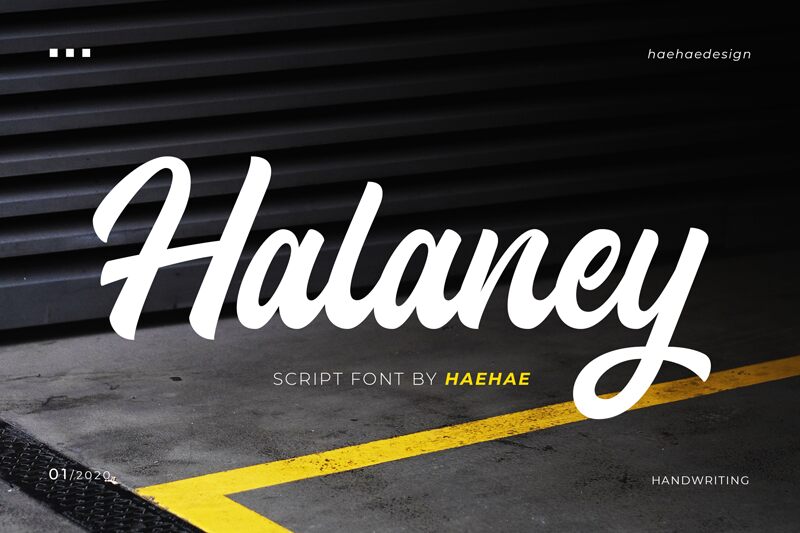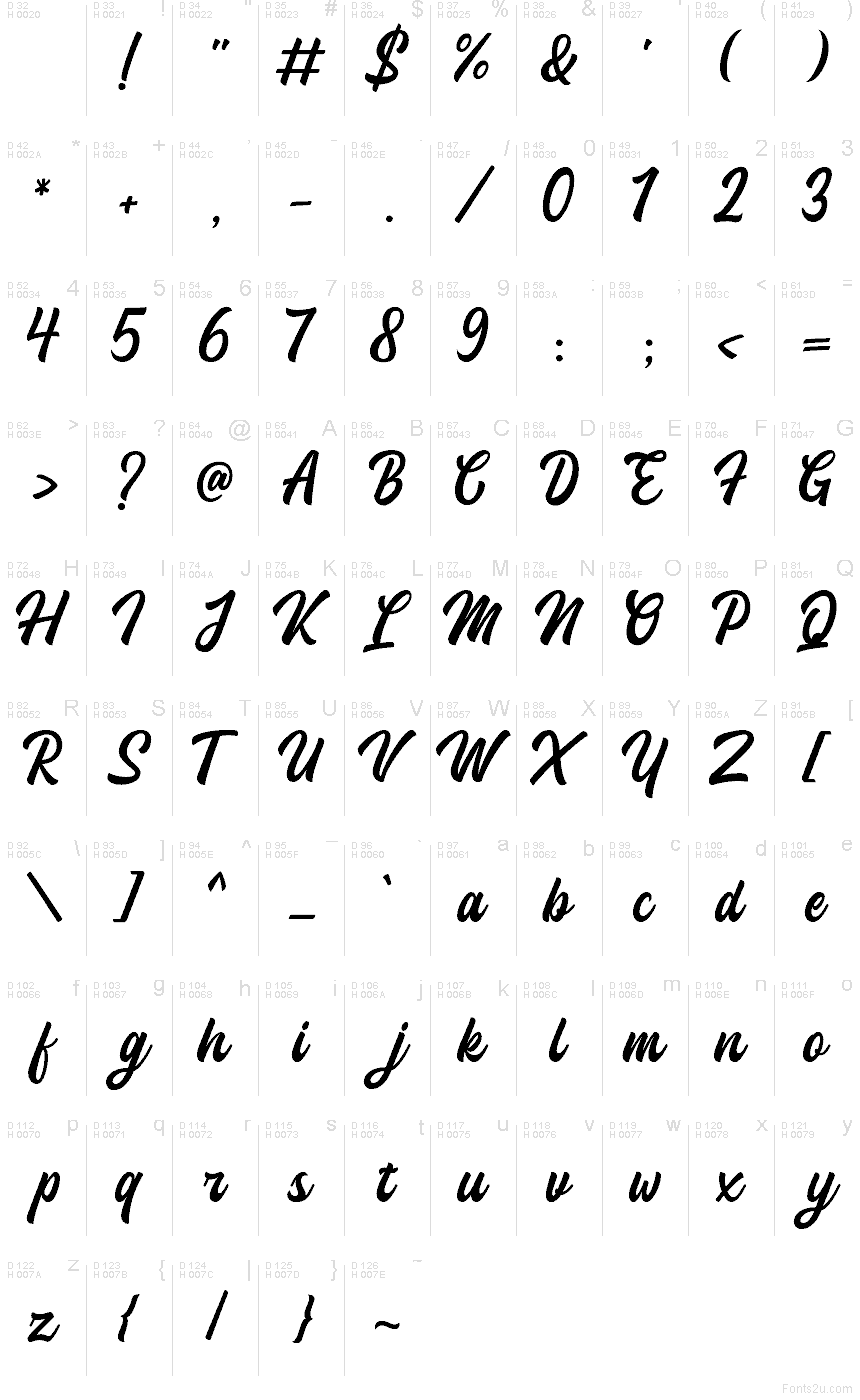
Halaney by Nur Cholis is a free brush script font with a warm handwritten swing. The letters lean into broad, inky strokes and smooth connections, mixing a tall looping opener with rounded lowercase forms that feel quick, soft, and a little polished.
It fits naturally in packaging, cafe branding, greeting cards, social posts, and cover lines where a casual signature feel helps carry the message. As a free font, Halaney also works well for title cards, short quotes, and simple logos, since the flowing joins and thick-to-thin brush rhythm give even brief words a lively, personal presence.